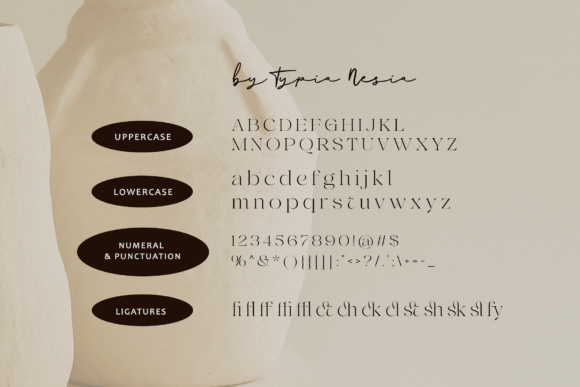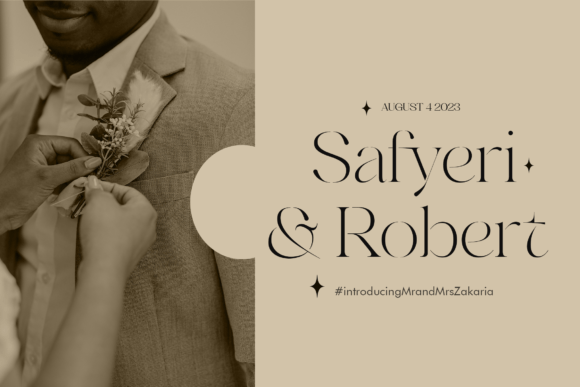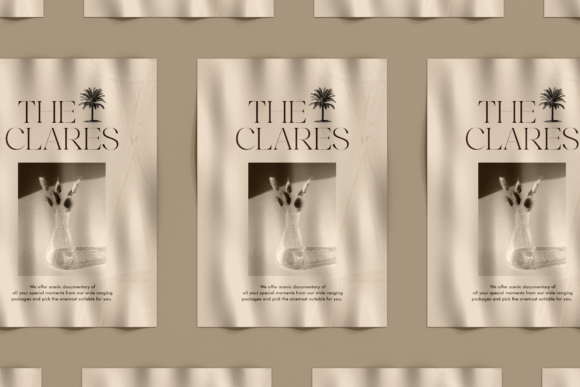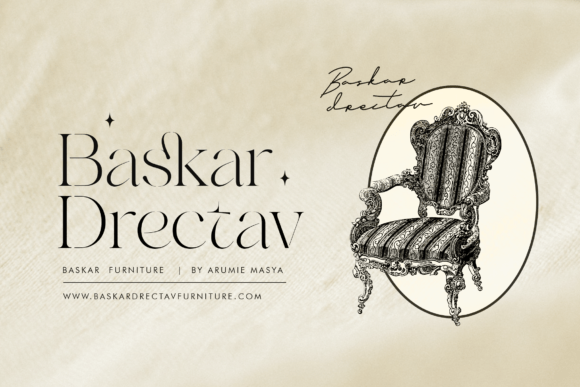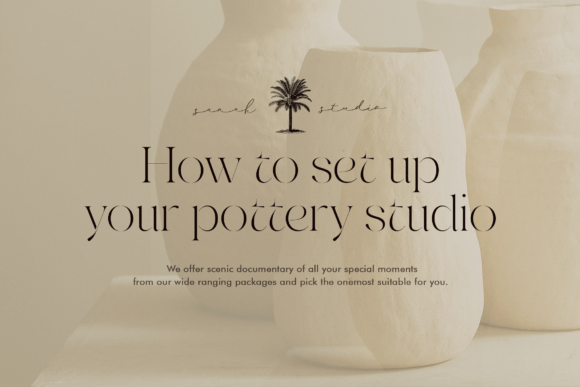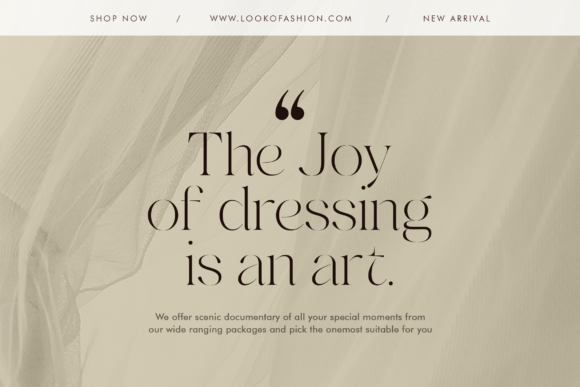
Introduction to Selectify Font Font
Fonts play a crucial role in design, and the Selectify Font font is a typeface that brings both character and versatility to any project. Whether you’re working on a branding project, a website, or a print design, the Selectify Font font offers a unique style that can elevate your work.
Introducing Selectify, the stencil serif font that exudes elegance, luxury, and beauty.
With its feminine touch, Selectify is perfect for any project that requires a touch of sophistication Selectify is perfect for various design projects that require a touch of sophistication.
Key Features of Selectify Font Font
Why Choose Selectify Font Font?
The Selectify Font font is more than just a typeface – it’s a design tool that helps you communicate your message with style and clarity. Its unique character set and versatile design make it suitable for a wide range of applications, from elegant invitations to bold headlines.
With its carefully crafted letterforms and balanced proportions, the Selectify Font font ensures readability and visual appeal across all mediums.
What makes Selectify Font font special?
The Selectify Font font stands out with its unique design, exceptional readability, and versatility across various design applications.